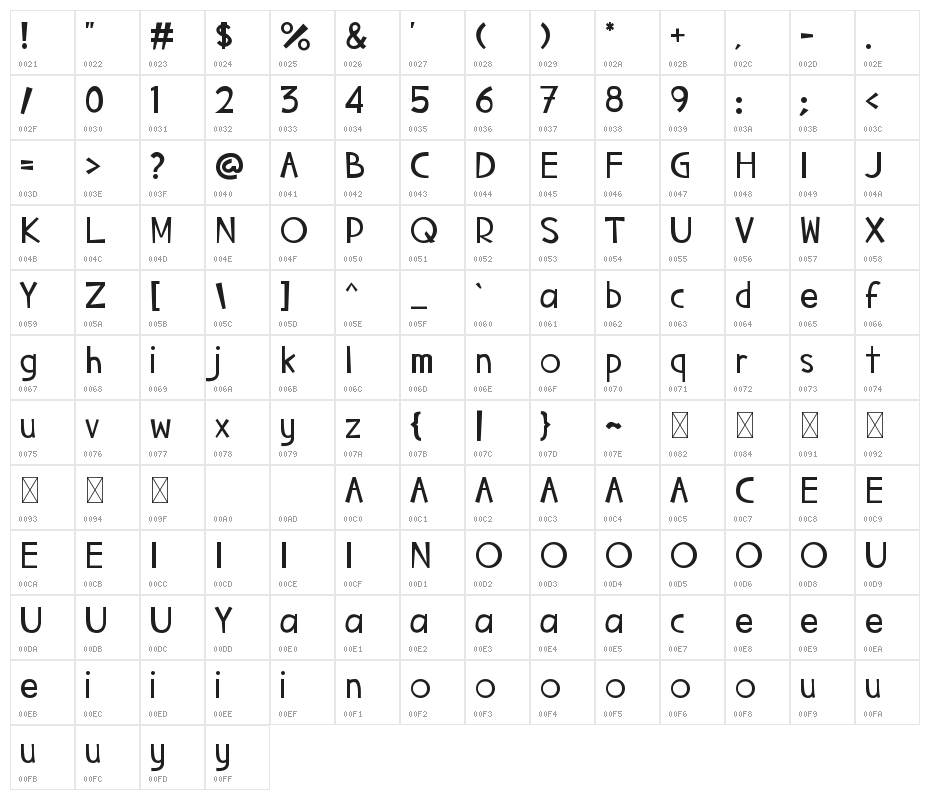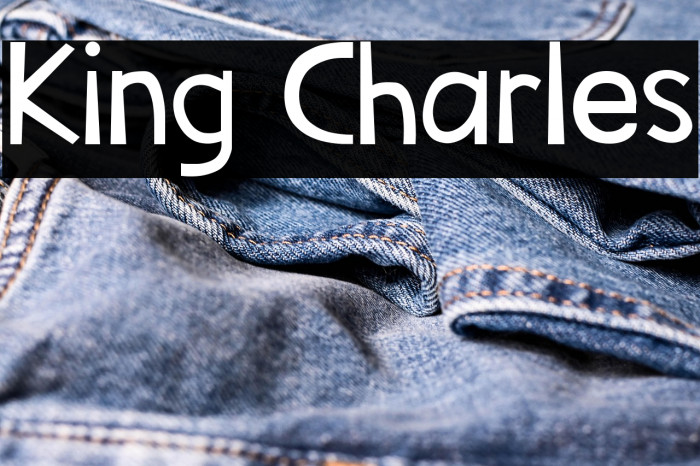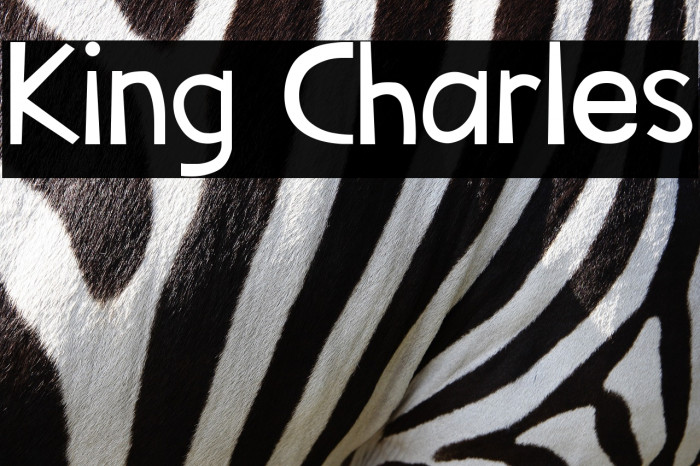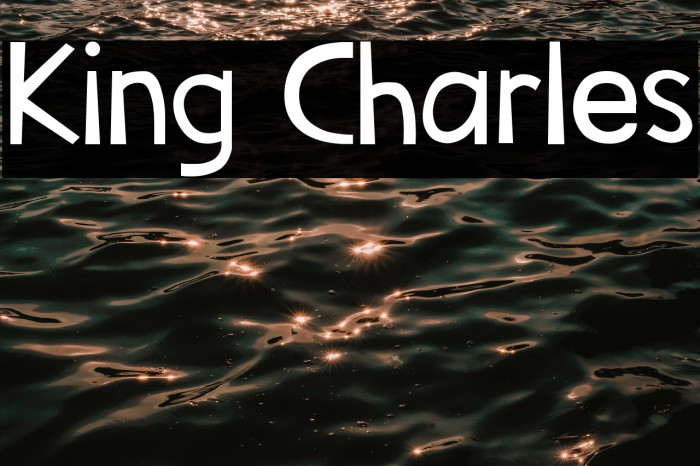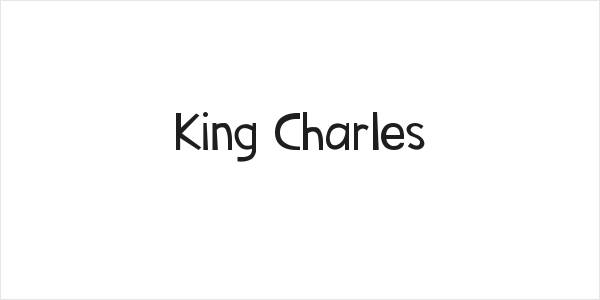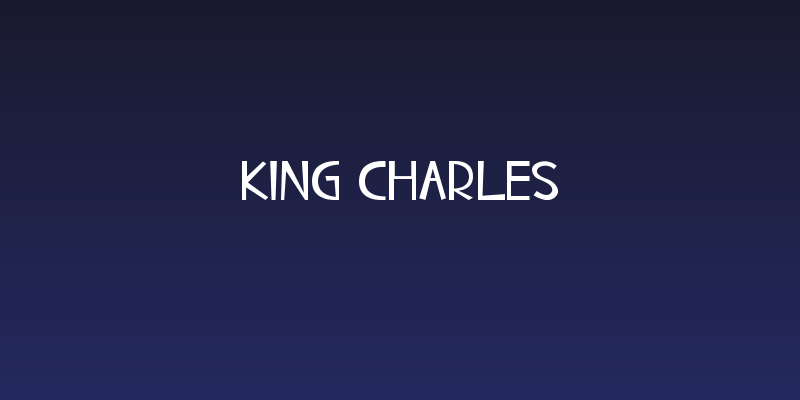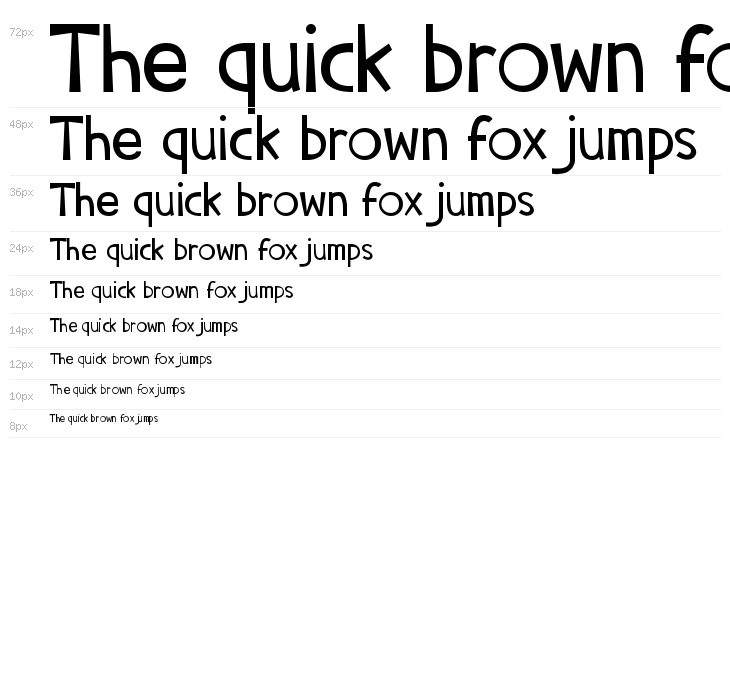
King Charles Font
King Charles Description
This font features a unique blend of geometric and organic shapes, creating a playful yet sophisticated appearance. The uppercase letters are bold and slightly condensed, with a distinct angularity that adds a modern touch. The lowercase letters maintain a consistent stroke width, offering a harmonious balance between the characters. The numerals are clear and legible, with a slight curvature that complements the overall design. Special characters are well-integrated, maintaining the font's cohesive style. This typeface is versatile, suitable for both digital and print media, and can be used to convey a sense of creativity and elegance.